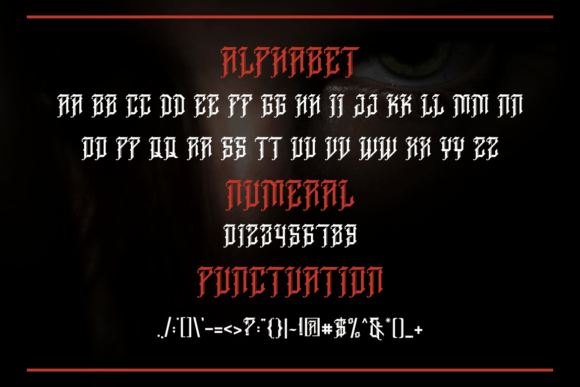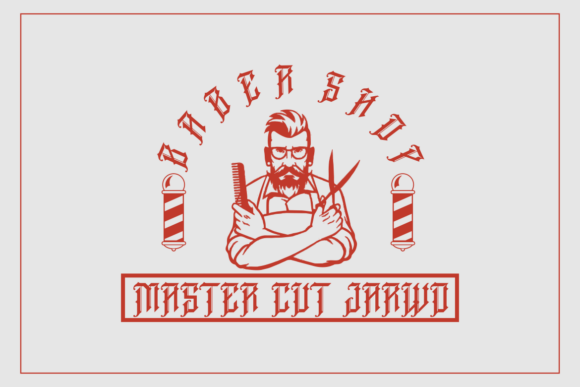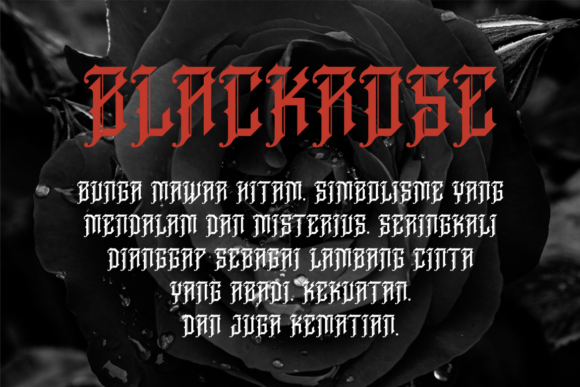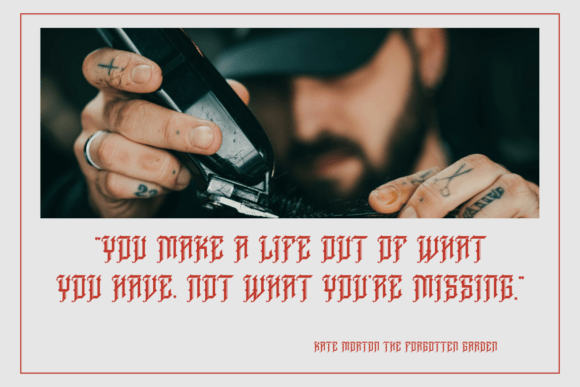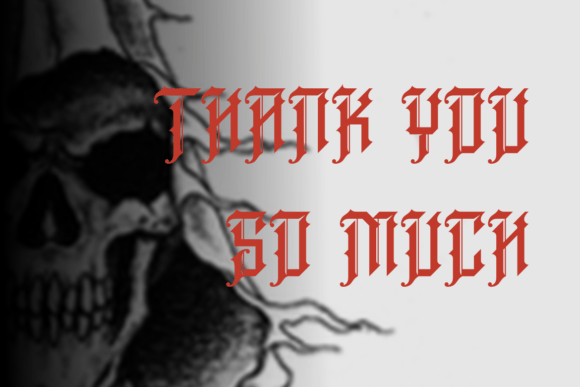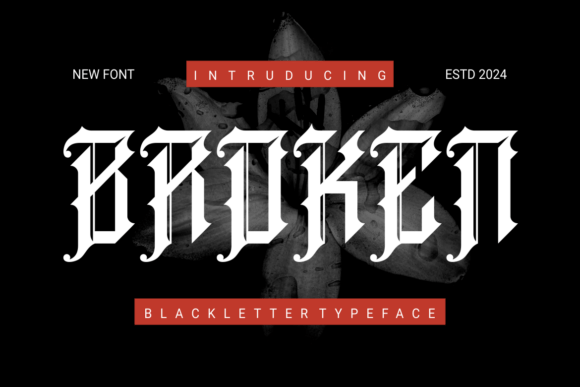
Unleash Your Creativity with Broken: A Striking Blackletter Typeface
In the world of typography, a font can make or break a design. For those seeking a bold and daring statement, look no further than Broken, a striking blackletter typeface that fuses traditional gothic structure with sharp, contemporary geometry. This font is not for the faint of heart; it’s a powerful tool designed to command attention and make a lasting impression.
The Birth of Broken: A Modern Masterpiece
Broken takes the classic medieval aesthetic of traditional blackletter fonts and shatters it into a bold, modern masterpiece. By combining aggressive, chiseled terminals with high-contrast vertical strokes, this font embodies a sense of power and resilience. The result is a typeface that’s both a nod to the past and a bold step into the future.
Perfect for Edgy Designs
Broken is the definitive choice for designers seeking to create striking streetwear branding, heavy metal album art, edgy editorial layouts, and high-impact posters. Its unique blend of traditional and modern elements makes it the perfect fit for projects that demand a bold and daring aesthetic. Whether you’re designing for the fashion industry, creating album art for a heavy metal band, or simply looking to add some edge to your editorial layouts, Broken is the perfect font for the job.
Key Features of Broken
- Aggressive, chiseled terminals: Add a touch of industrial chic to your designs with Broken’s distinctive terminals.
- High-contrast vertical strokes: Create a sense of drama and tension with Broken’s bold, expressive strokes.
- Traditional gothic structure: Pay homage to the past with Broken’s classic blackletter roots.
- Sharp, contemporary geometry: Bring your designs up to date with Broken’s modern, geometric twist.
Why Choose Broken?
So why choose Broken over other fonts? Here are just a few reasons why this striking typeface stands out from the crowd:
- Uniqueness: Broken is a one-of-a-kind font that will set your designs apart from the competition.
- Versatility: From streetwear branding to heavy metal album art, Broken is the perfect fit for a wide range of design projects.
- Impact: With its bold, daring aesthetic, Broken is guaranteed to make a lasting impression on your audience.
Tips for Using Broken Effectively
To get the most out of Broken, here are a few tips to keep in mind:
- Use it sparingly: Due to its bold nature, it’s best to use Broken sparingly to avoid overwhelming your design.
- Experiment with different sizes: Broken looks great in a variety of sizes, from large headlines to smaller body text.
- Pair it with contrasting fonts: Create visual interest by pairing Broken with contrasting fonts that showcase its unique features.
| Font Name | Broken Font |
| Author | Kenrichi |
In conclusion, Broken is a striking blackletter typeface that’s sure to command attention and make a lasting impression. With its unique blend of traditional and modern elements, this font is the perfect fit for designers seeking to create bold, daring designs. Whether you’re working on streetwear branding, heavy metal album art, or edgy editorial layouts, Broken is the definitive choice for those seeking to make a statement.